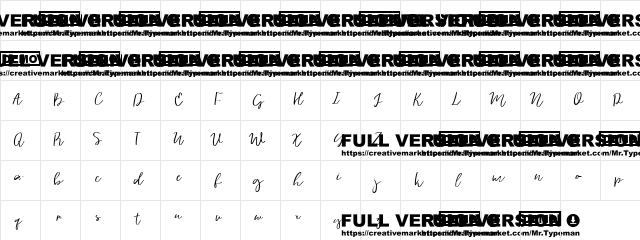
Vingiloth Regular
Design Context for Vingiloth Typeface
Vingiloth is a composed and adaptable typeface that performs quietly and consistently across a wide range of design contexts.